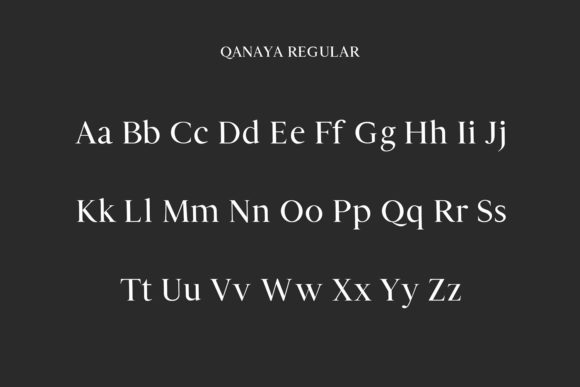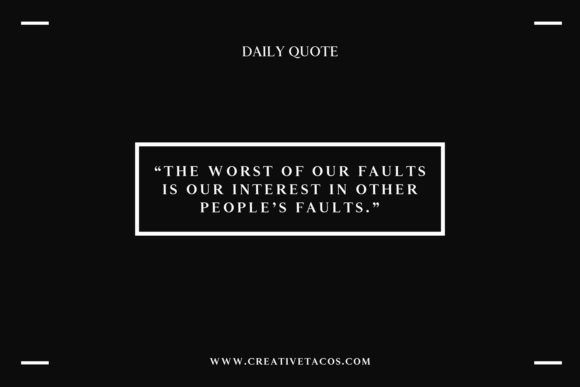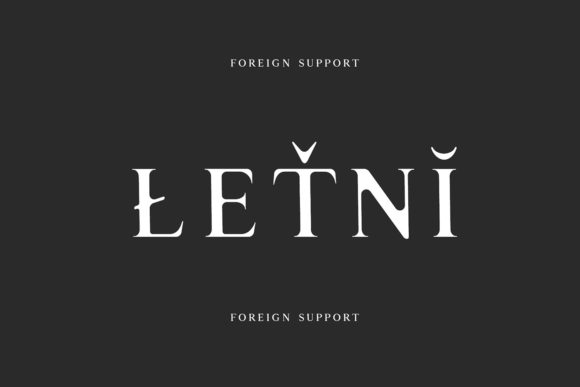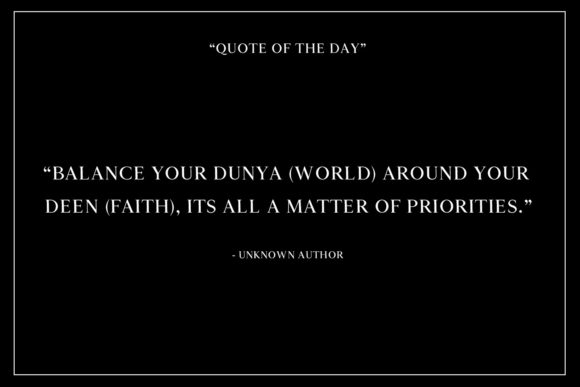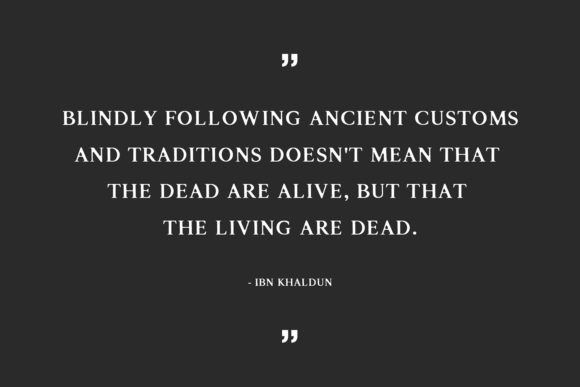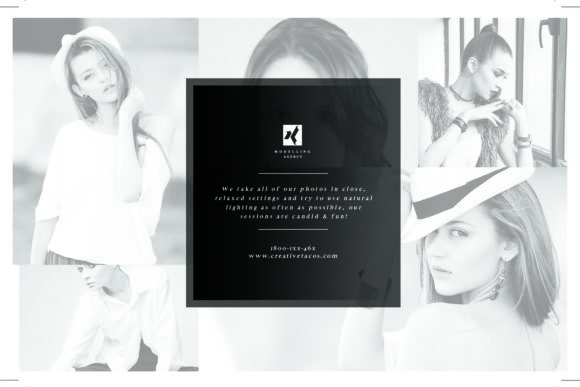
Introduction to Qanaya Family Font Font
Fonts play a crucial role in design, and the Qanaya Family Font font is a typeface that brings both character and versatility to any project. Whether you’re working on a branding project, a website, or a print design, the Qanaya Family Font font offers a unique style that can elevate your work.
Qanaya is a neat and solemn serif font family.
It will beautifully complement fashion magazines, books, stationery, name tags, business materials, banners, and much more .
Key Features of Qanaya Family Font Font
Why Choose Qanaya Family Font Font?
The Qanaya Family Font font is more than just a typeface – it’s a design tool that helps you communicate your message with style and clarity. Its unique character set and versatile design make it suitable for a wide range of applications, from elegant invitations to bold headlines.
With its carefully crafted letterforms and balanced proportions, the Qanaya Family Font font ensures readability and visual appeal across all mediums.
What makes Qanaya Family Font font special?
The Qanaya Family Font font stands out with its unique design, exceptional readability, and versatility across various design applications.